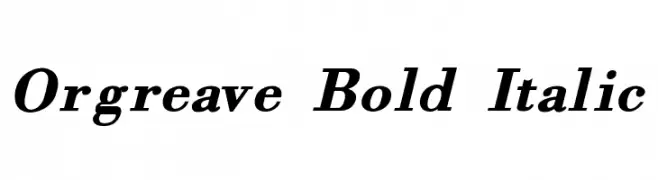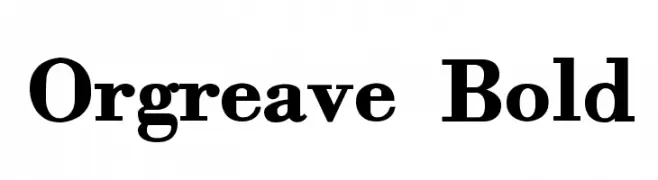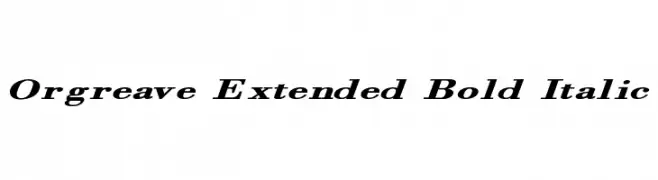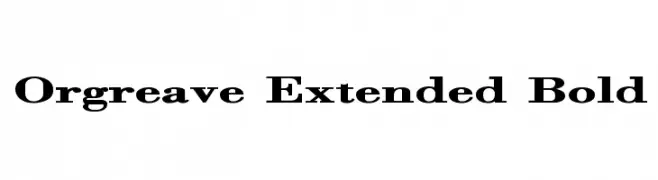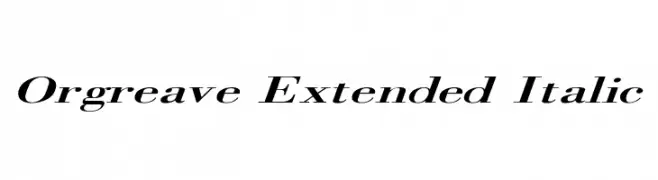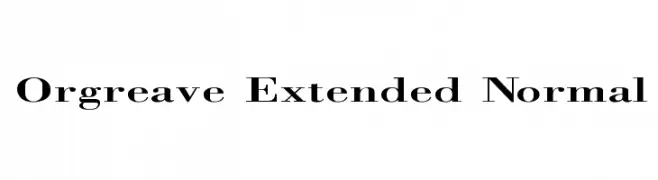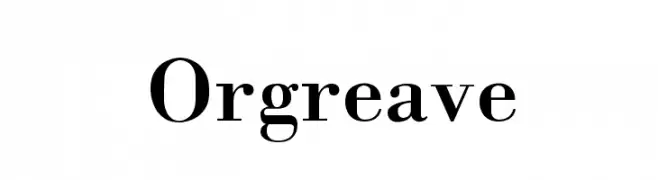
A classic serif font with elegant curves and moderate contrast.
A bold, classic serif font with strong, thick strokes and a modern twist.
A bold, italicized font with a strong and dynamic presence.
A bold, extended serif font with a strong, authoritative presence.
A bold, italic, and extended font with a dynamic and elegant style.
Elegant italic serif font with extended, condensed characters and medium contrast.
A classic serif font with extended width and modern elegance.